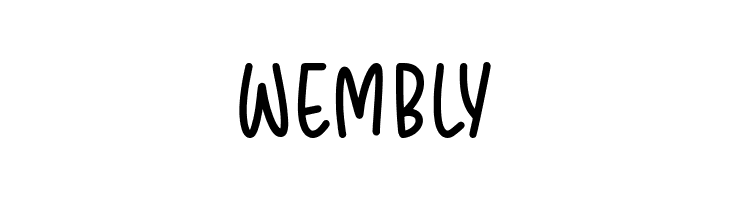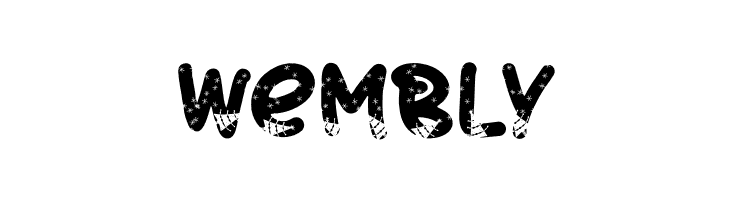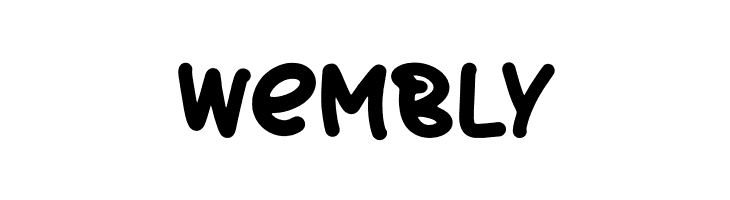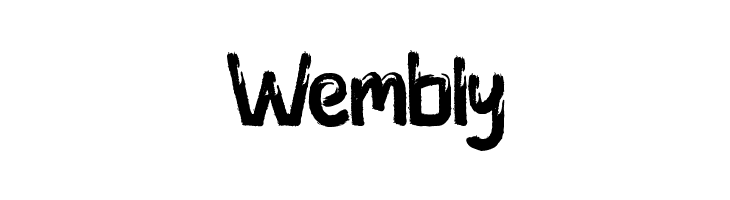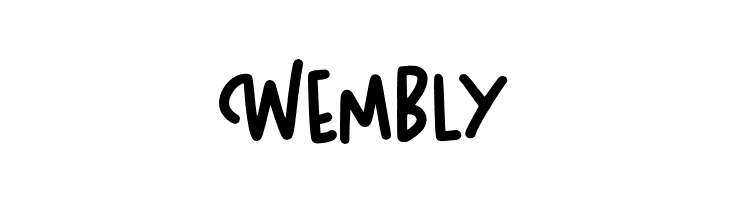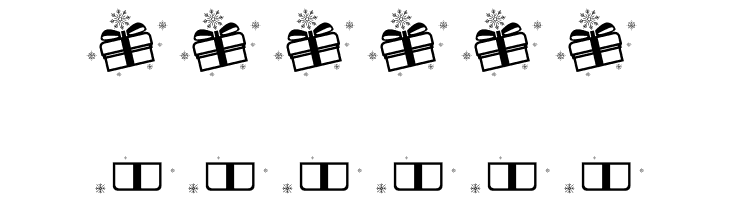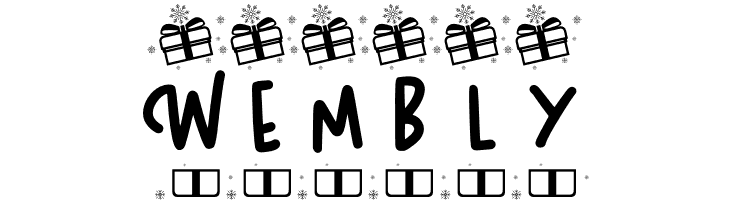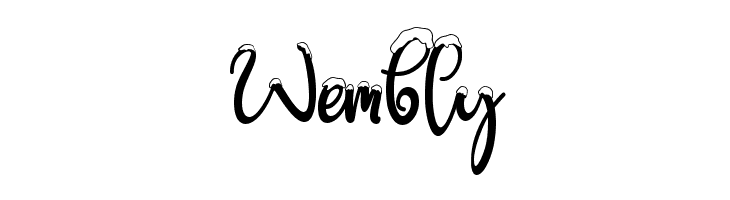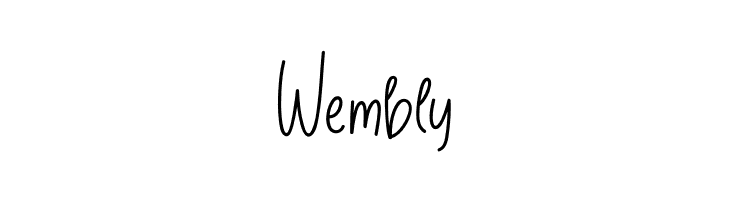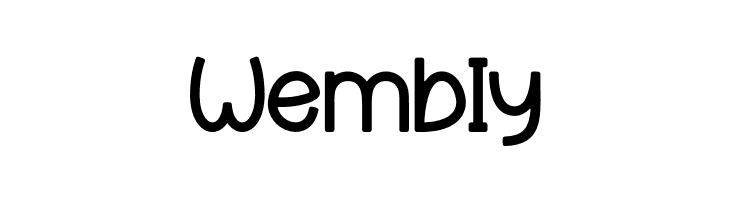
Snowmania Font
Julieta Ulanovsky
A decorative, snowflake-inspired font with intricate, textured characters.
snowmask Font
Font by weknow - Wino S Kadir
SNOWMI Font
Font by Gilang Ternadho
A casual, rounded sans-serif font with playful character.
Snowpe Font
A bold, flowing script font with dynamic strokes and elegant slant.
Snowpe Font
A bold, expressive script font with fluid and dynamic strokes.
Snowpersons Font
A whimsical, snow-themed decorative font with intricate details.
Snowshoe Font
A dynamic handwritten font with fluid strokes and a casual elegance.
Snowstorm Font
Denis Sherbak - yavlenie.com
A bold, geometric font with sharp, angular edges and a strong presence.
Snowstorm Black Font
Denis Sherbak - yavlenie.com
A bold, blocky font with a strong geometric style, perfect for impactful headlines.
Snowstorm Bold Font
Denis Sherbak - yavlenie.com
A bold, geometric font with angular lines and a blocky appearance.
Snowstorm Inline Font
Denis Sherbak - yavlenie.com
A bold, geometric inline font with a modern, structured appearance.
Snowstorm Kraft Font
Denis Sherbak - yavlenie.com
A bold, distressed font with a rugged, weathered appearance.
Snowstorm Light Font
Denis Sherbak - yavlenie.com
A geometric, modern font with clean lines and sharp angles.
Snowstreet Personal Use Only Font
A geometric, angular font with a futuristic and edgy design.
Snowstreet Thin Personal Use Font
A geometric, angular font with thin, linear strokes for a modern look.
Snowtop Caps Font
Font by Dieter Steffmann
A bold, decorative font with snow-capped characters perfect for winter themes.
SnowtopCaps Regular Font
A decorative, snow-themed font perfect for festive designs.
SnowWhite Font
Emberlorna
A playful, handwritten font with a whimsical and casual style.
Snowy Caps Font